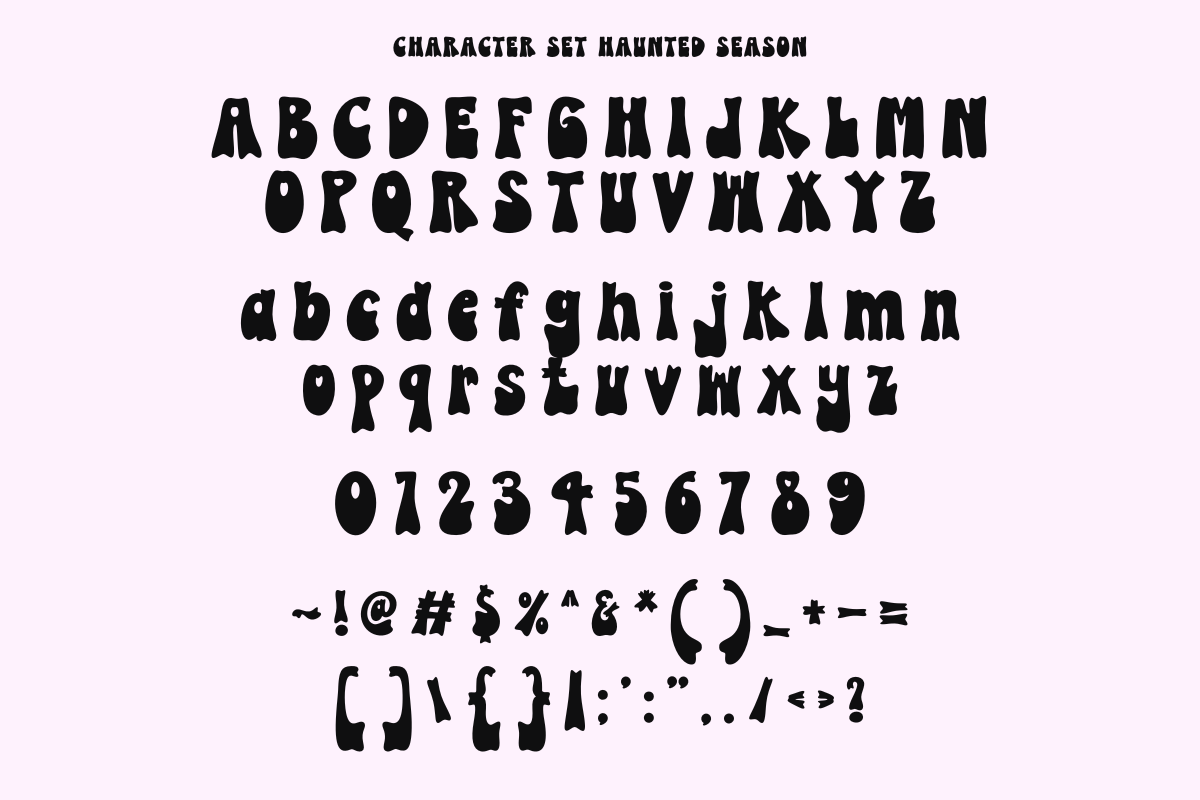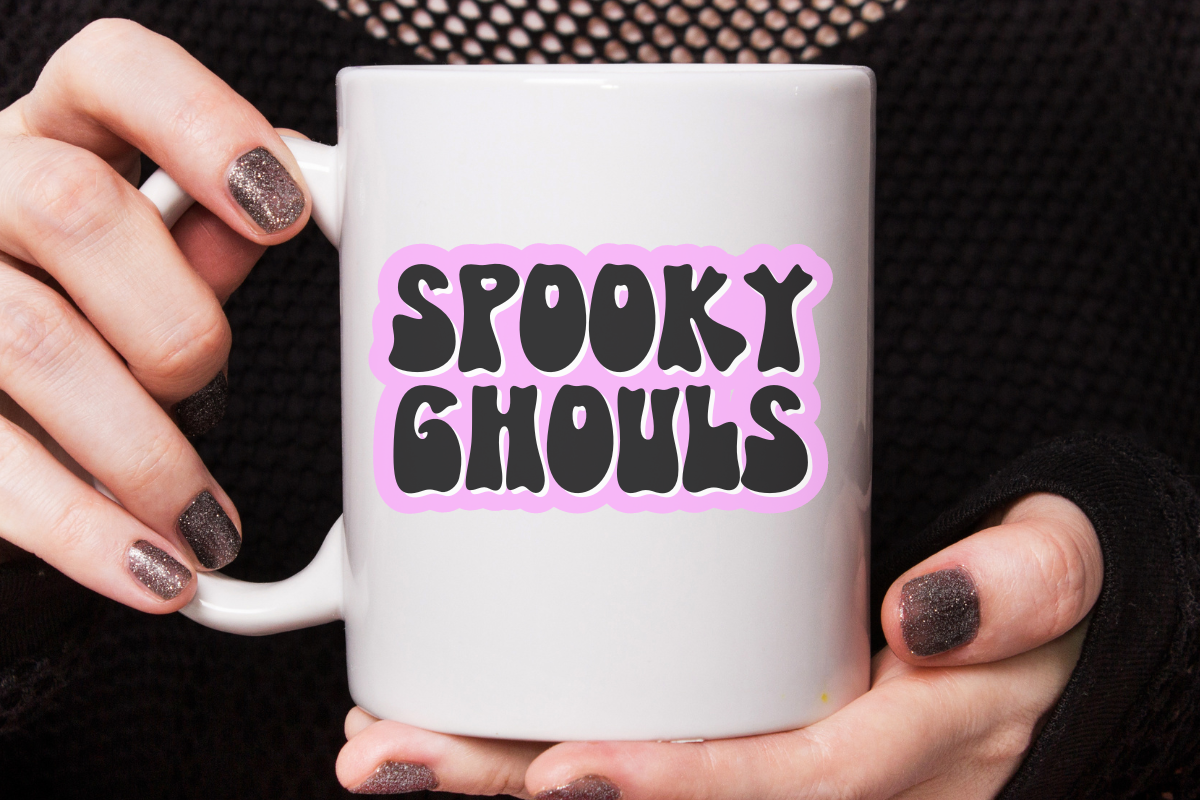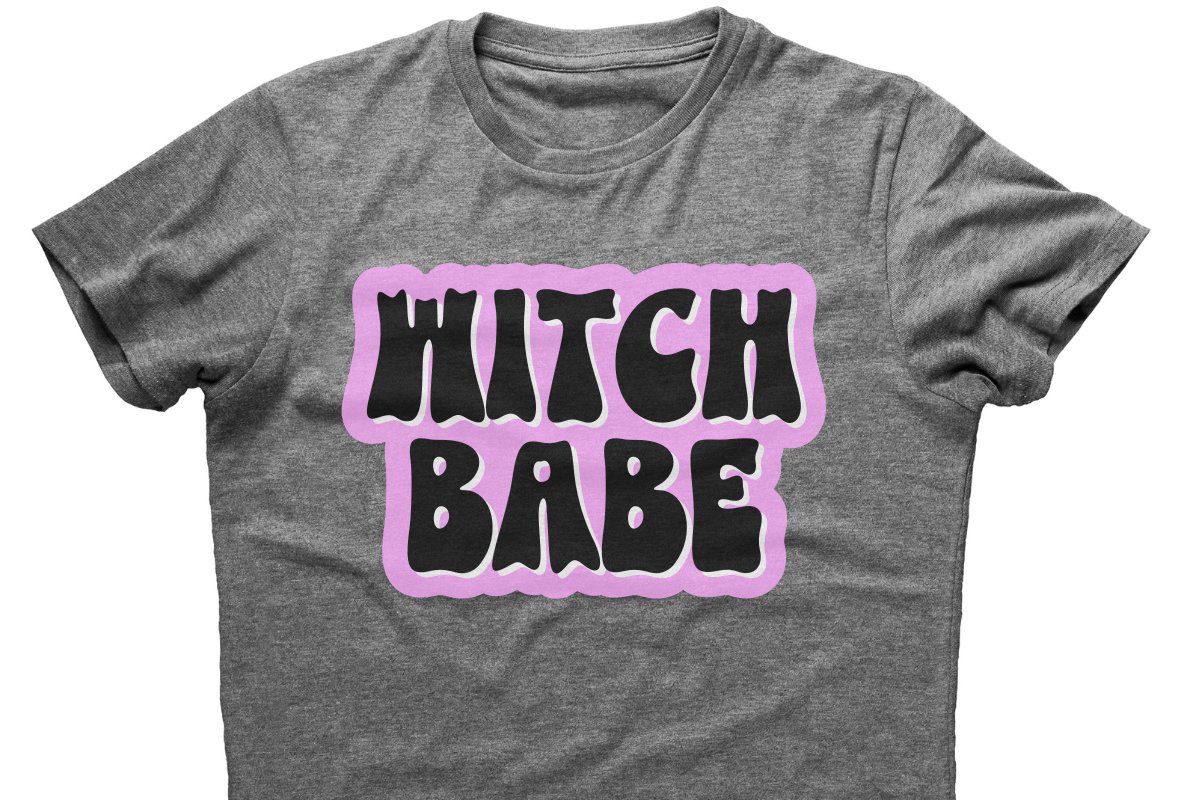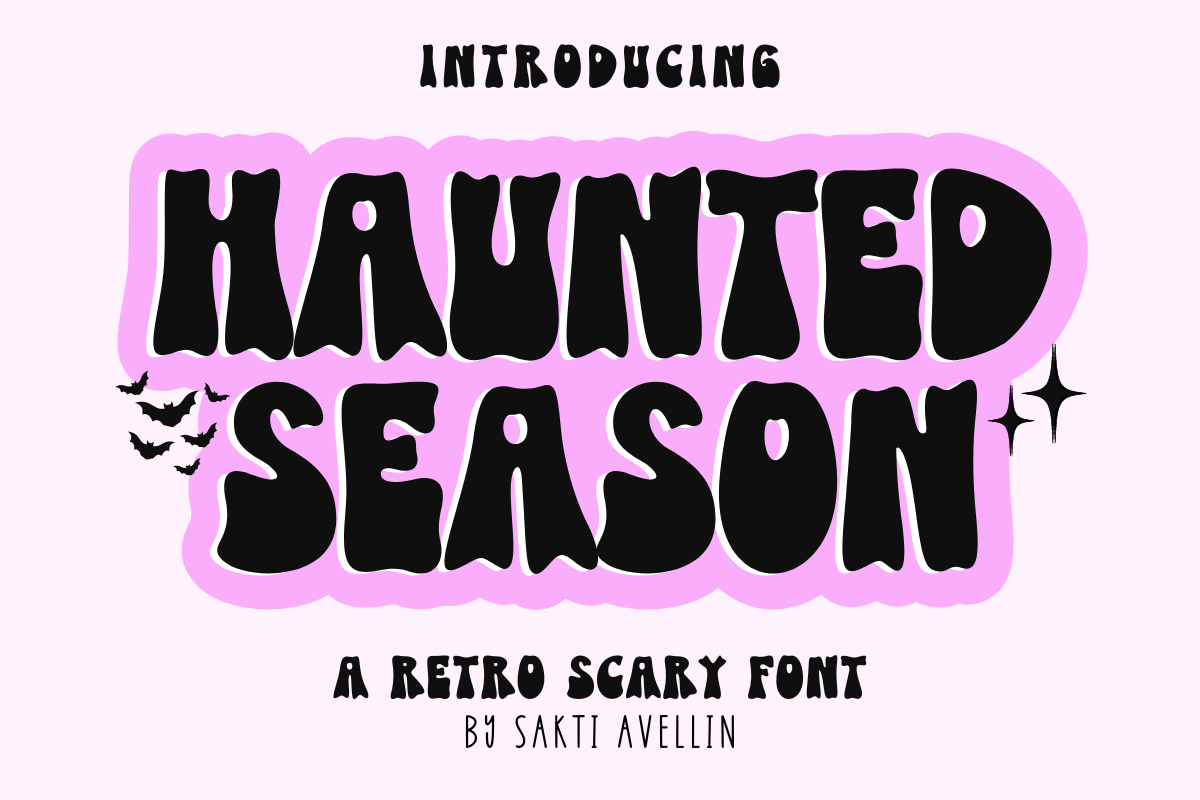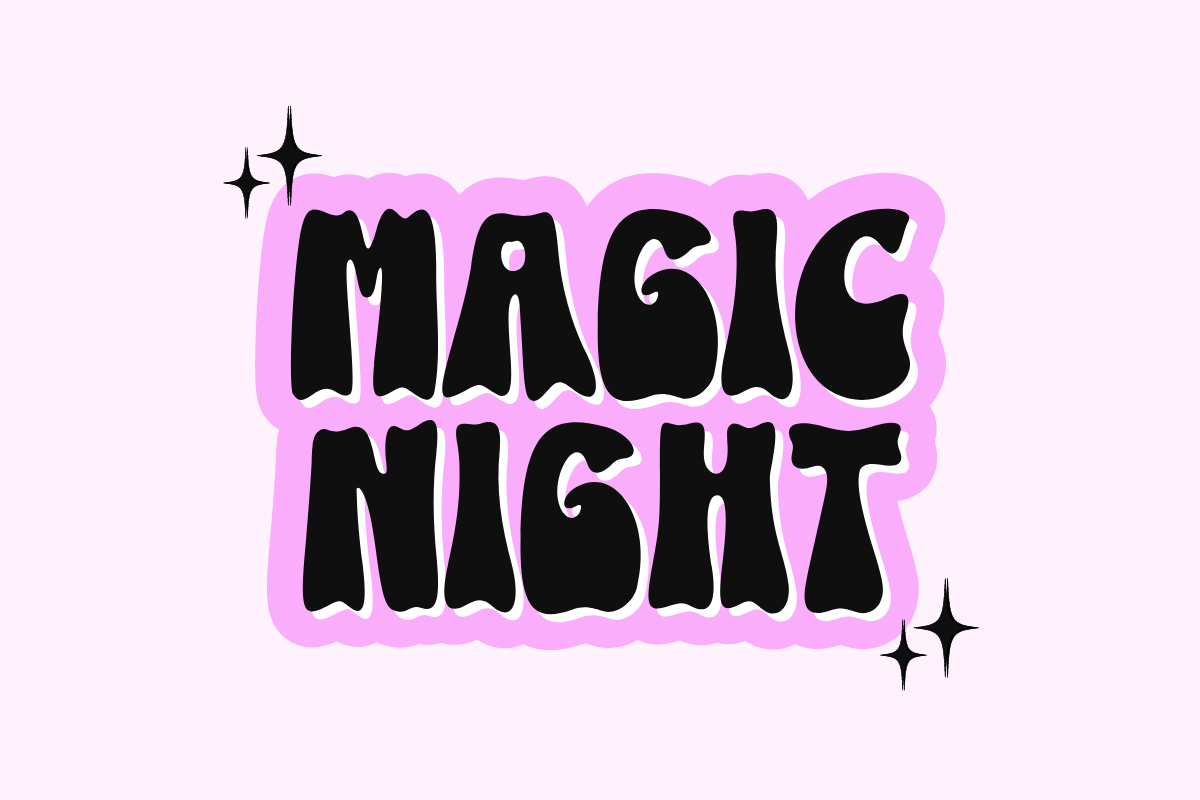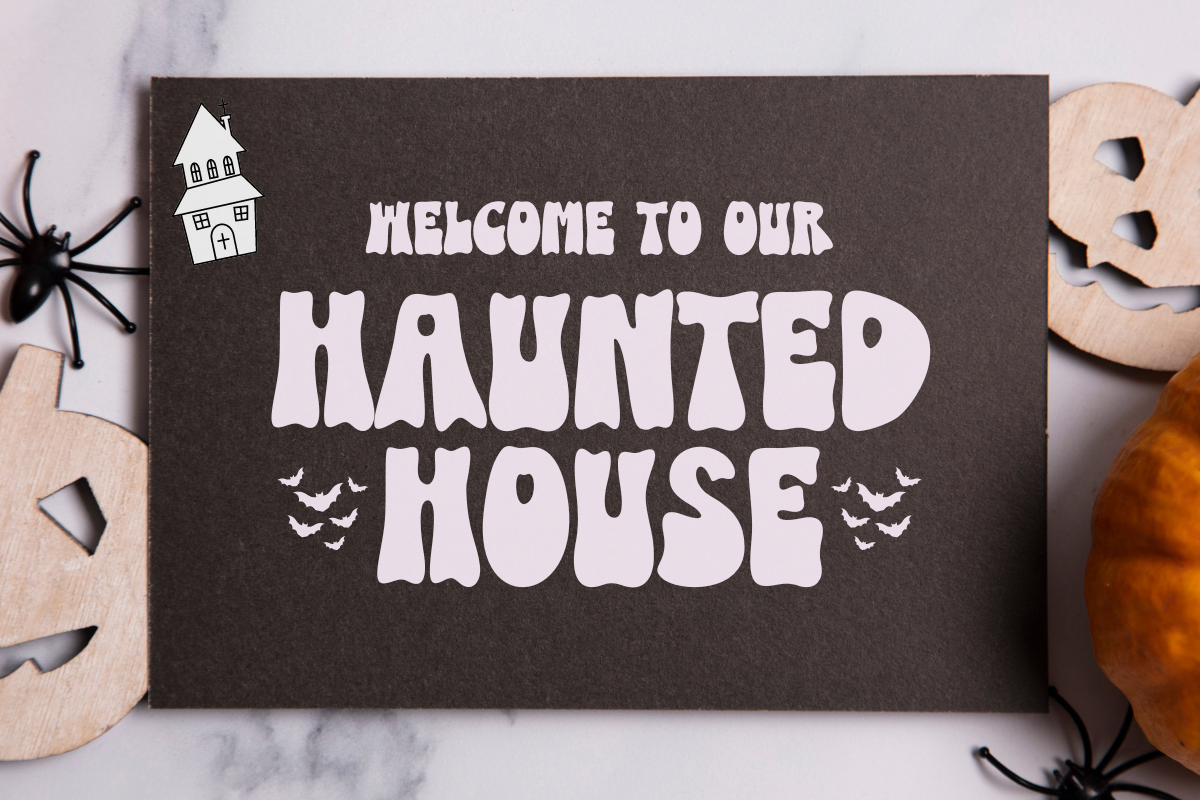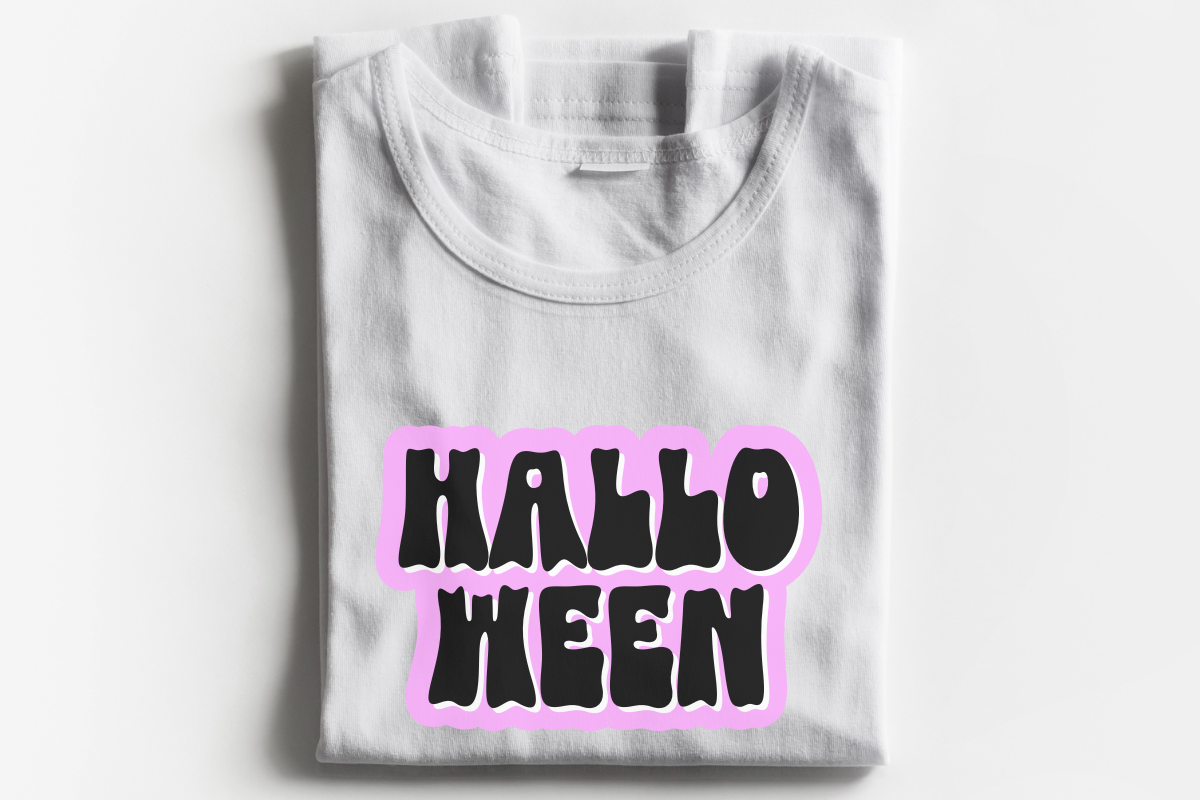
Haunted Season - Retro Scary Font
Haunted Season is a bold, high-impact retro scary font designed to bring a spooky yet groovy energy to your creative projects. This chunky display typeface features wavy, bubbly letterforms with a rhythmic, psychedelic bounce, making it an essential choice for Halloween branding, spooky t-shirt prints, horror posters, and festive stickers. Its unique, liquid-like silhouette ensures it stands out as a powerful decorative font for headlines and product packaging, perfect for designers seeking a mix of 70s nostalgia and seasonal thrills. Elevate your designs with the chilling and vibrant spirit of Haunted Season!